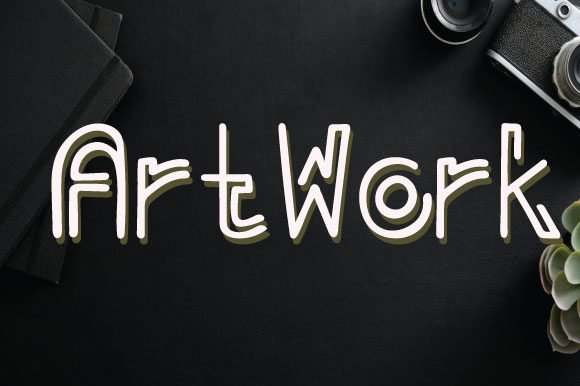
Introduction to Artwork Font
Artwork is a unique and clean display font.
It will elevate a wide range of design projects to the highest level, be it branding, headings, logos labels, and so much more .
Key Features of Artwork Font
Why Choose Artwork Font?